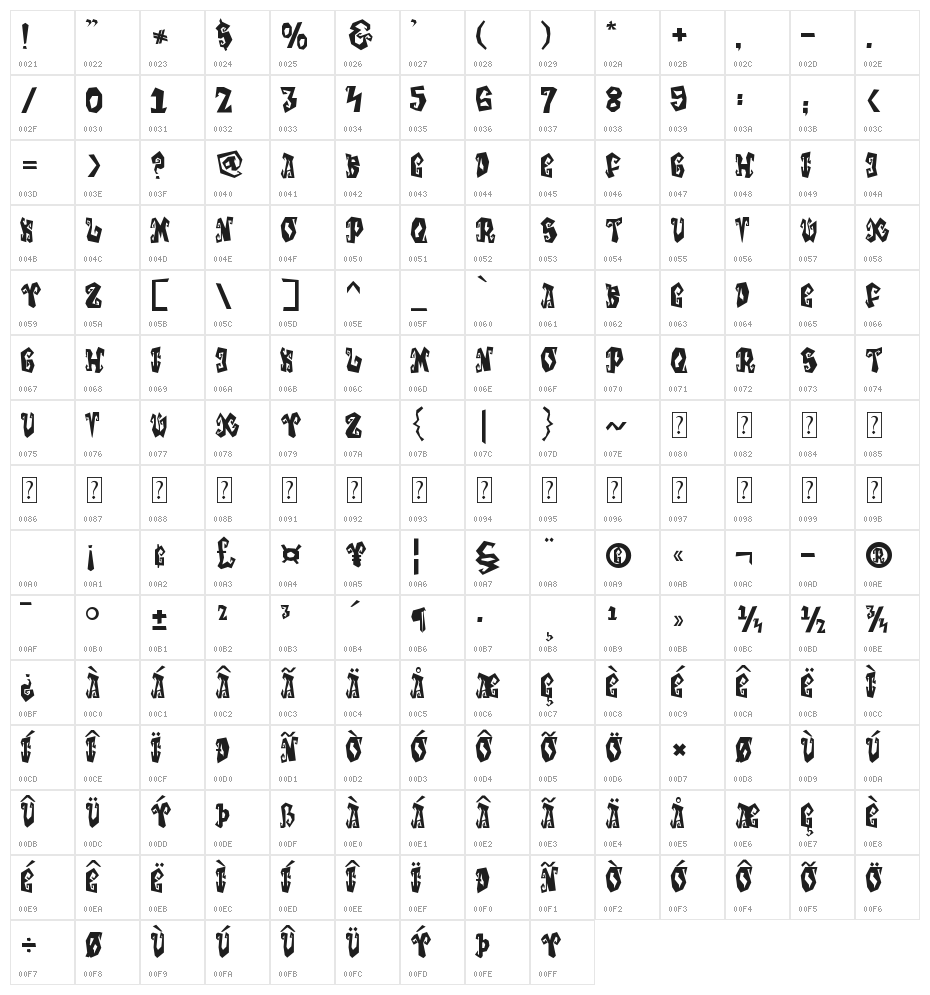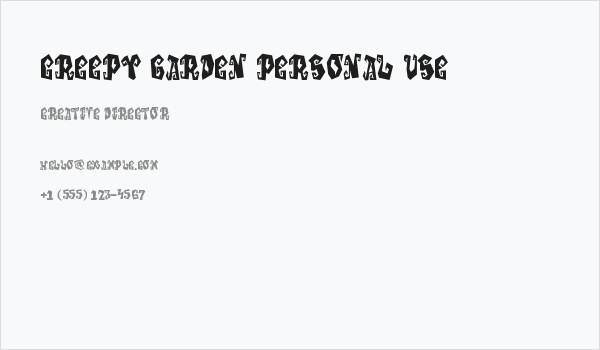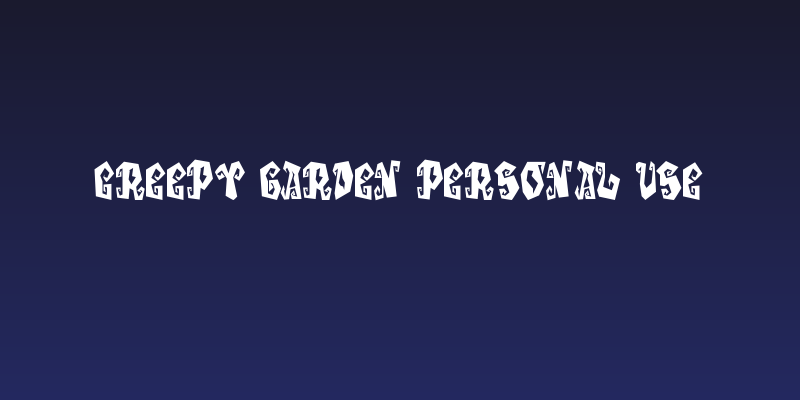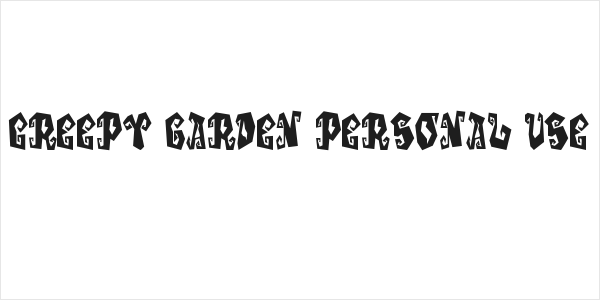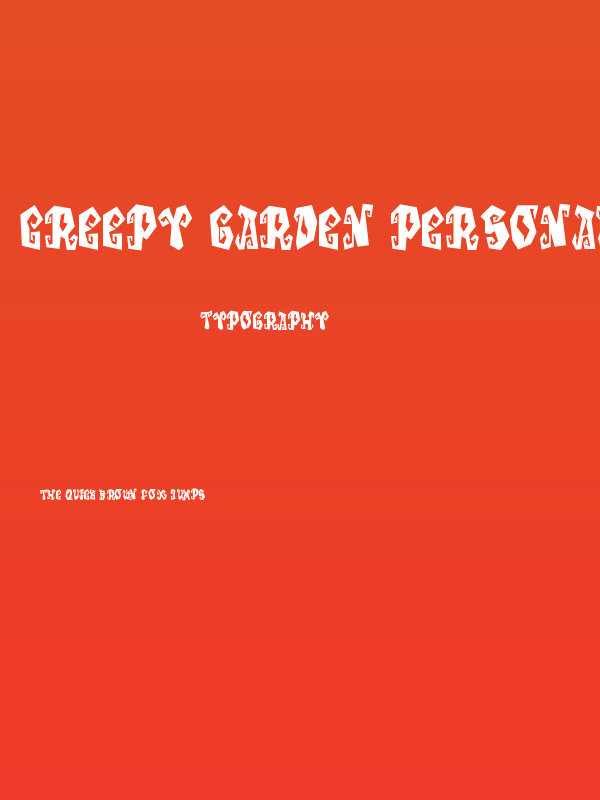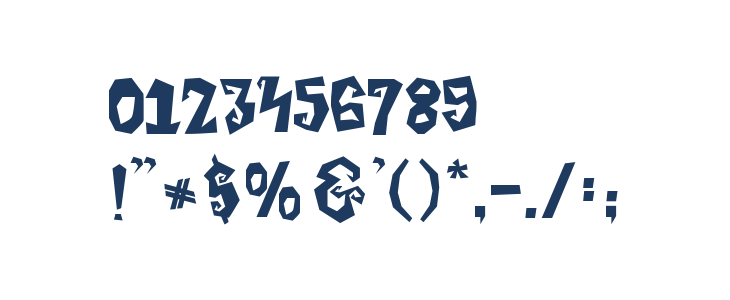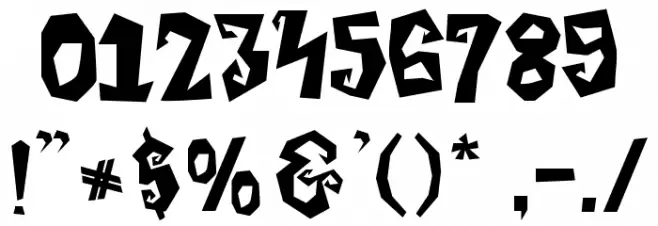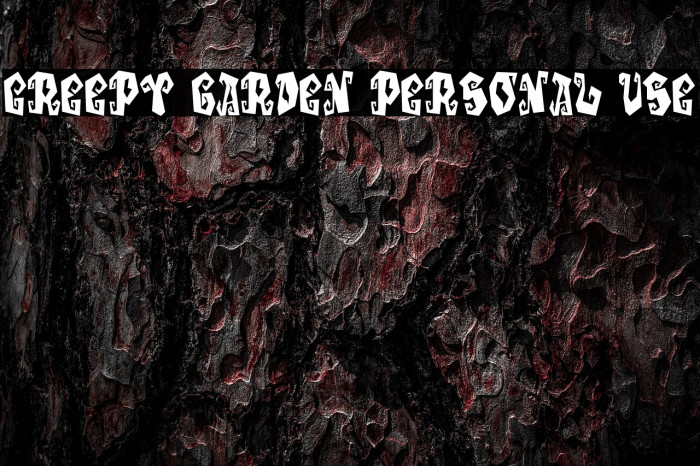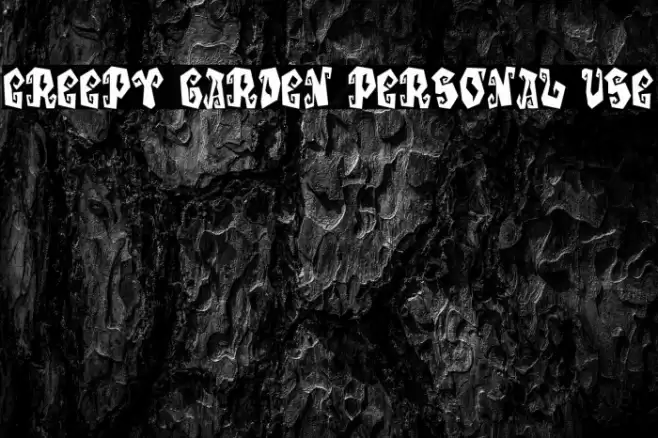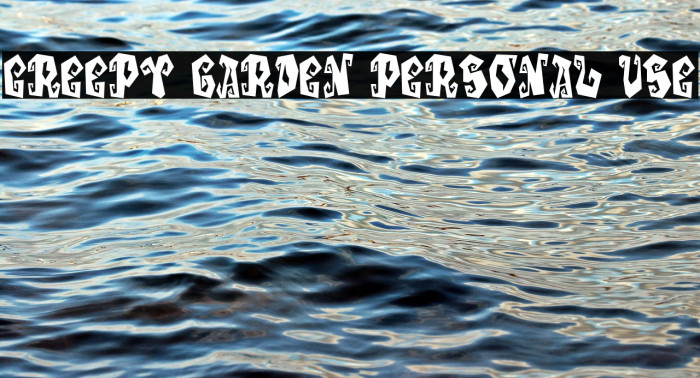
Creepy Garden Personal Use Font
Creepy Garden Personal Use Description
This font features a bold and quirky design with a distinctly spooky and playful aesthetic. Each character is crafted with sharp angles and irregular shapes, giving it a unique, hand-drawn appearance. The uppercase and lowercase letters maintain a consistent style, with exaggerated serifs and a slightly distorted form that adds to its whimsical charm. The numbers and special characters follow the same design principles, ensuring a cohesive look across all glyphs. This font is perfect for projects that require a touch of eccentricity and creativity, such as Halloween-themed designs, posters, and playful branding.
| Proposed Projects | Ideal for Halloween-themed designs, playful posters, and creative branding. |